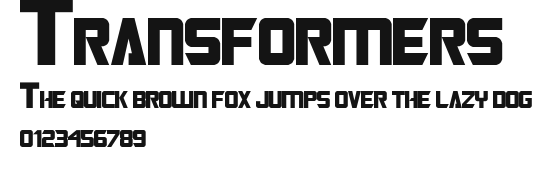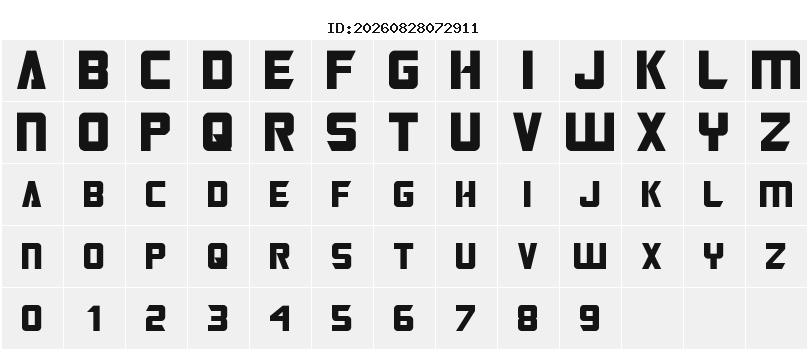
• Font Name: Transformers
• Full Font Name: Transformers
About Transformers.ttf
Transformers.ttf is a modern, elegant sans-serif font designed for ultimate readability and visual harmony. Perfect for branding, headlines, web design, and print materials.